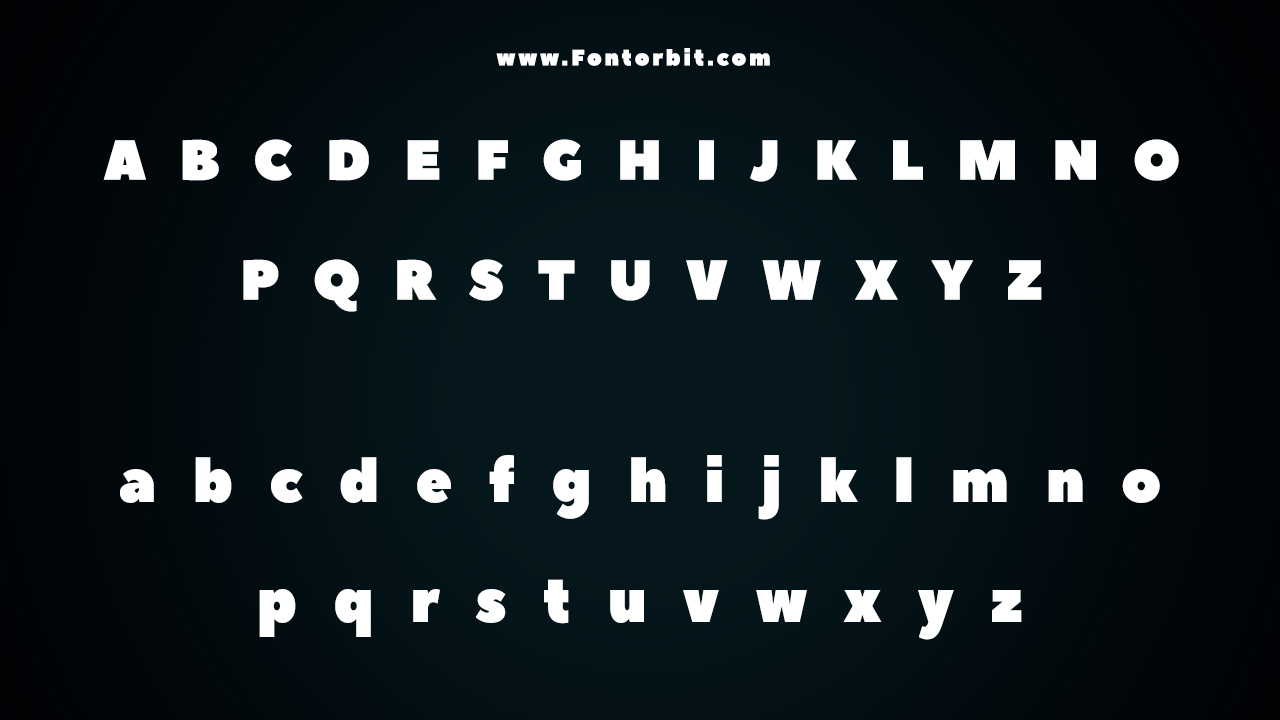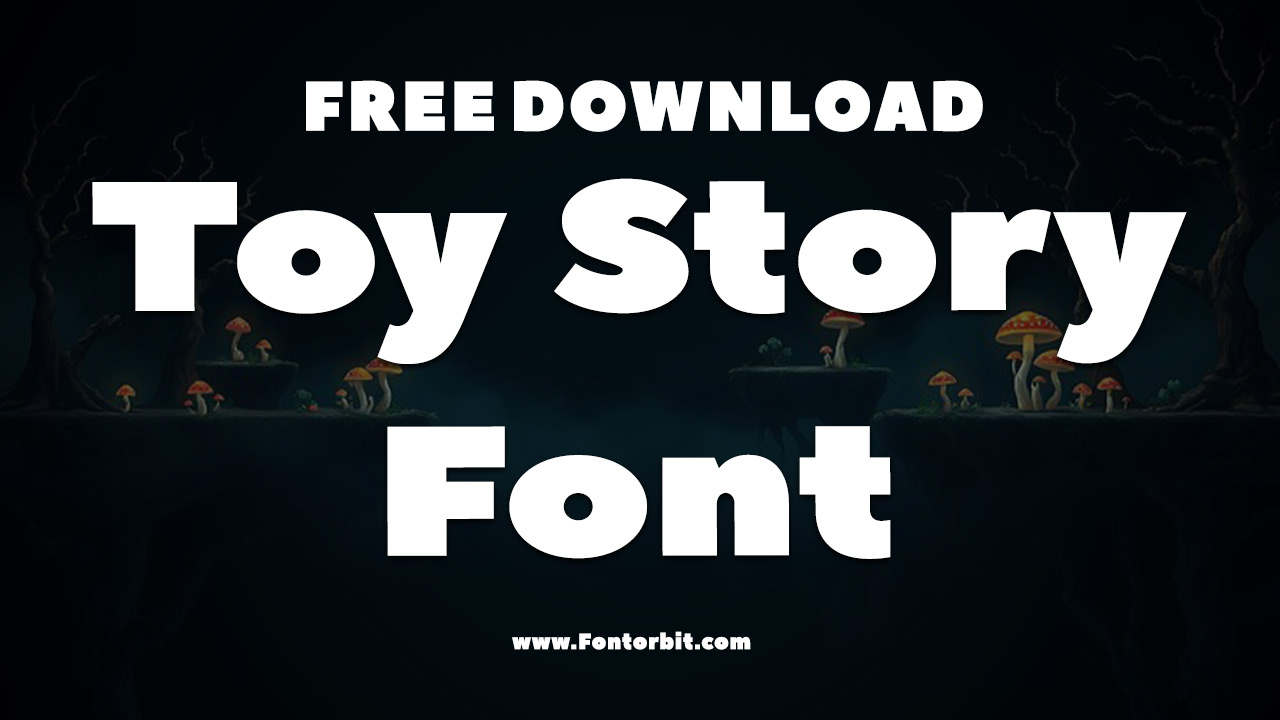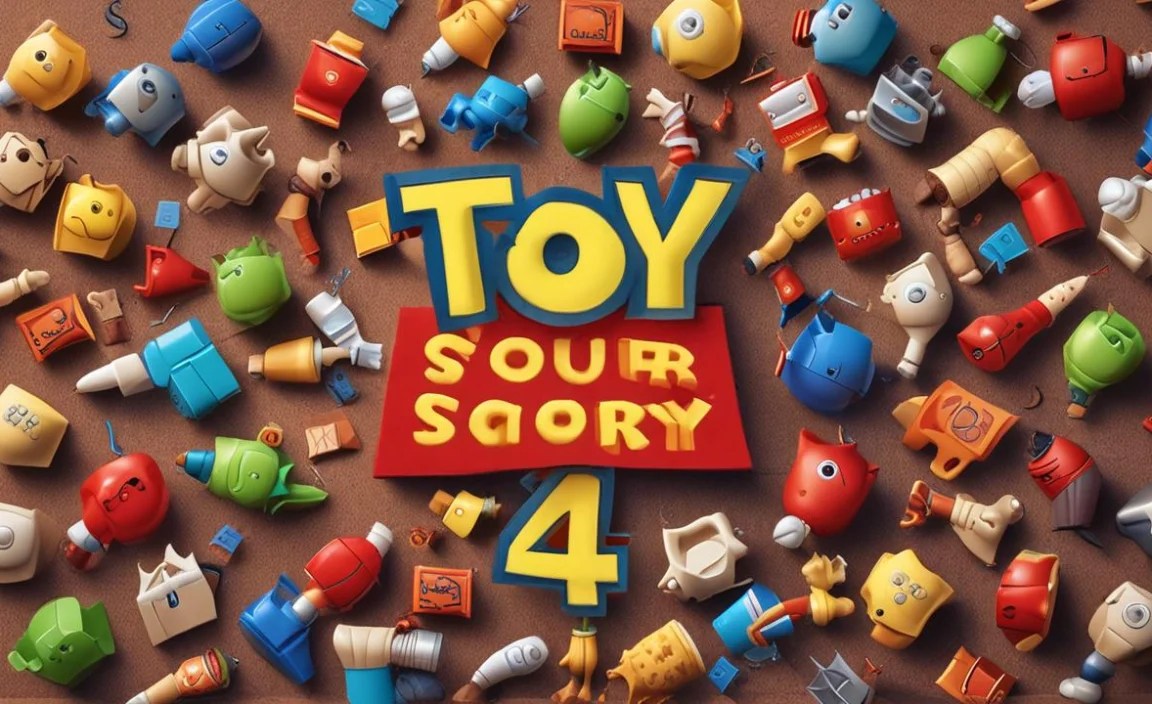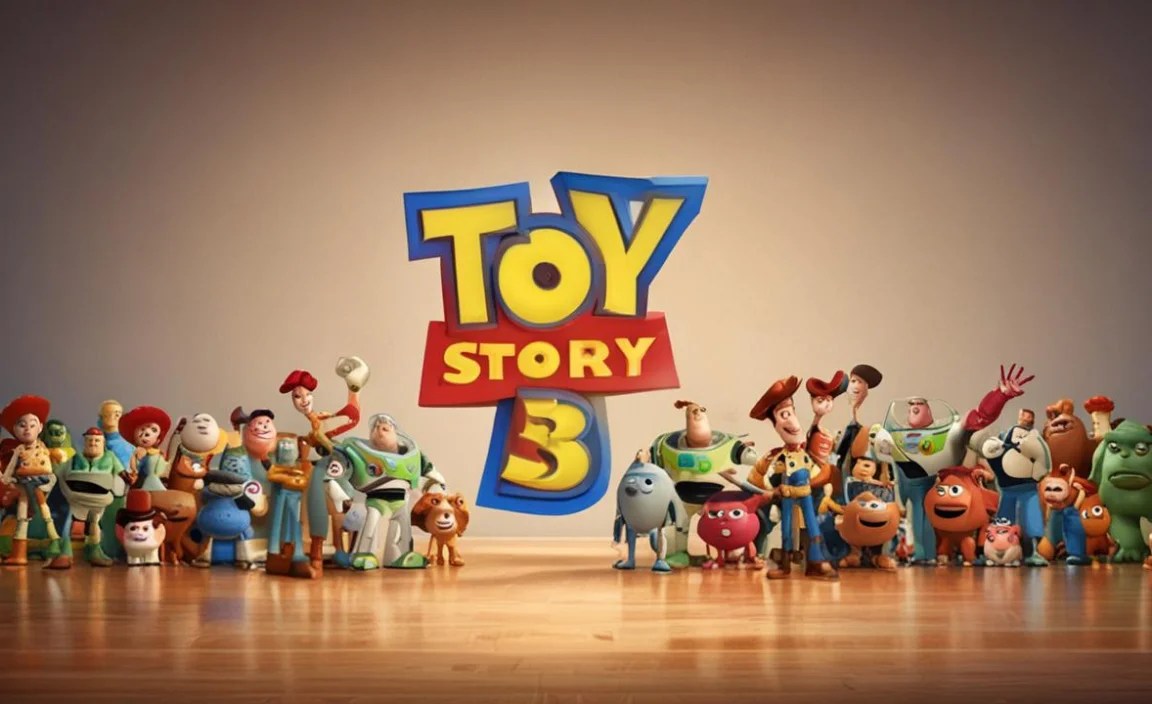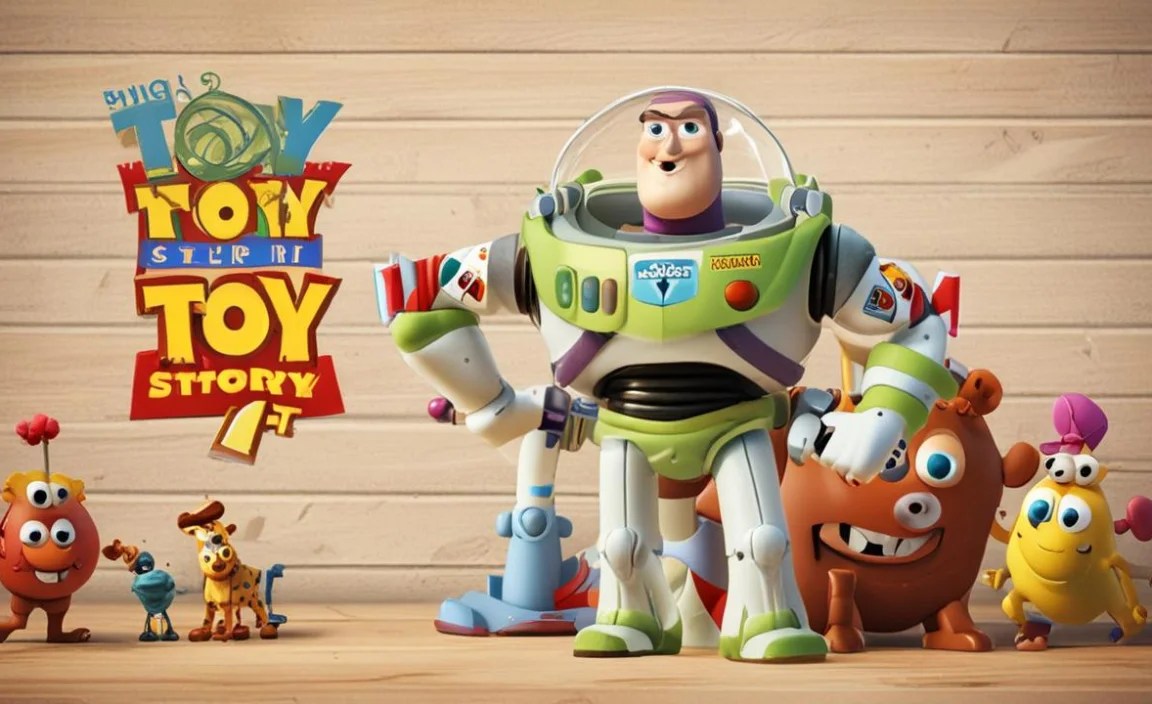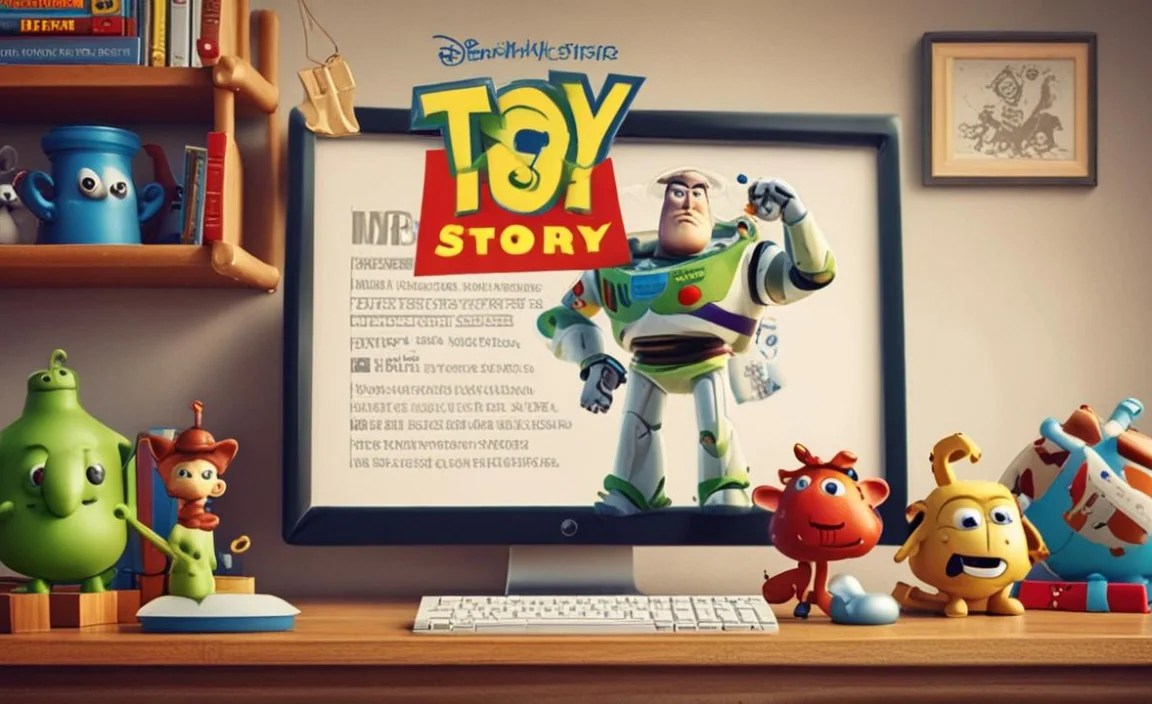
The Toy Story font is a fun and iconic typeface famously used in the animated movie series Toy Story. Designed by Eric Gill, it mimics the bold, playful lettering style used in the film’s logo. It was first introduced in 1995 when the original Toy Story movie was released.
The font falls under the Sans-serif family, combining casual and blocky elements that align with the movie’s adventurous and childlike theme.
Toy Story Font Family Includes
The Toy Story font family offers a fun and quirky aesthetic for playful designs. The font’s strong yet friendly lettering shapes its association with cartoons, children’s media, and entertainment branding. The Toy Story font family includes:
a. Peace Sans
These versions allow for versatility in design, ranging from bold title treatments to subtle text styling.
Notable Uses Of Toy Story Font
The strong association of the Toy Story font with the Pixar Toy Story franchise has made it widely recognized. Designers often use this font in:
- Children’s Parties
- Toy packaging
- Movie posters
- Merchandise
- Social media graphics
The Toy Story font is best used in playful, whimsical, and creative designs. Consider using this font for:
- Children’s invitations and birthday cards
- Toy branding and packaging
- Themed event posters and banners
- Graphic designs with a nostalgic feel
- Merchandise design targeting a younger audience
- Creative social media posts or YouTube thumbnails
However, due to its strong association with the Toy Story movie, use it sparingly in serious or formal contexts.
The Toy Story font has earned its place as a beloved and iconic typeface in the design world thanks to its connection to one of the most successful animated film series ever.
It’s perfect for adding a touch of nostalgia or whimsy to your projects, especially those aimed at a younger audience. Whether you’re designing for a birthday party or a toy store, this font will grab attention with its bold and playful aesthetic.
1.What Is The Toy Story Font Called?
The Toy Story font is a custom font designed by Fontmesa that replicates the playful style of the movie’s logo.
4.Where Is The Toy Story Font Commonly Used?
It’s commonly used in children’s party invitations, movie posters, and toy packaging.
5.Is The Toy Story Font Easy To Read?
It’s bold and legible, making it suitable for titles and headings.